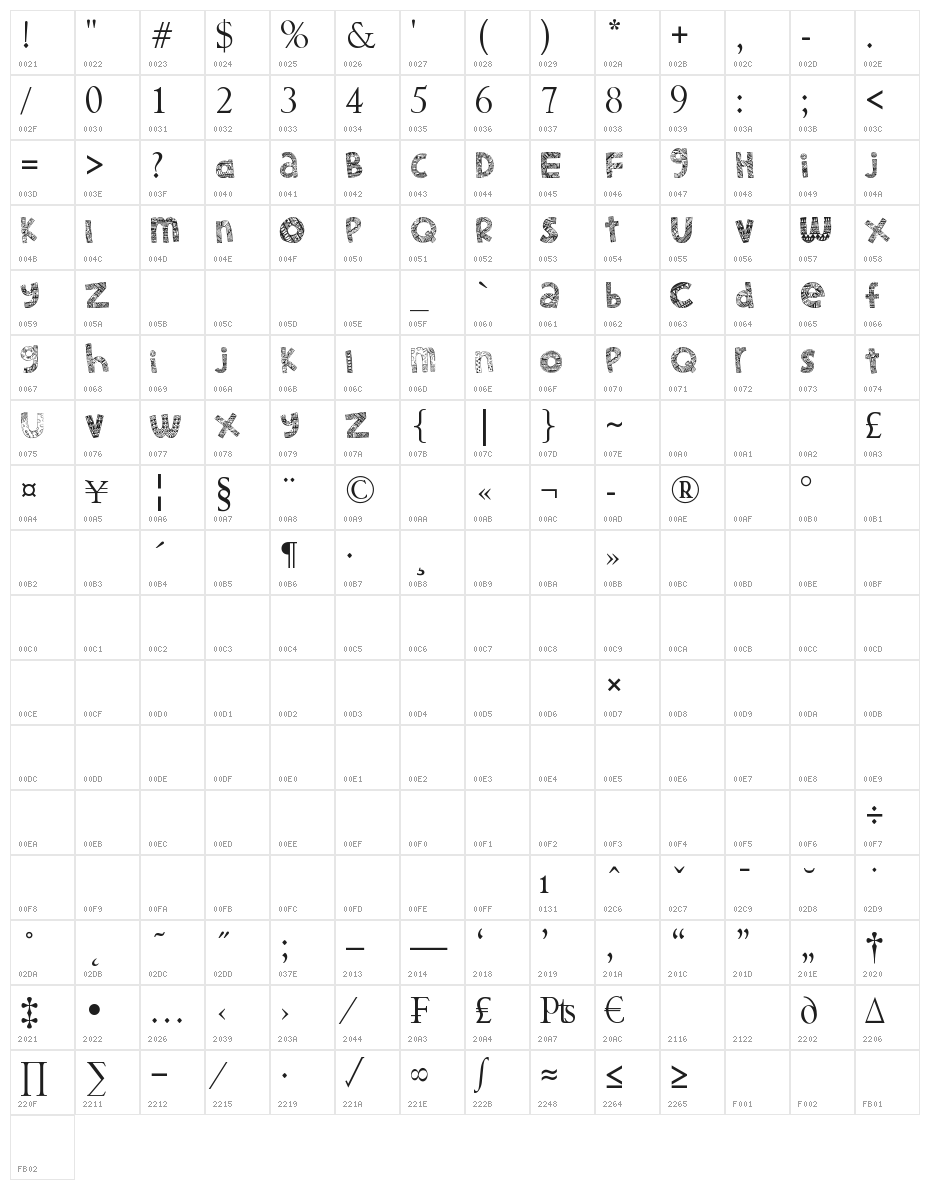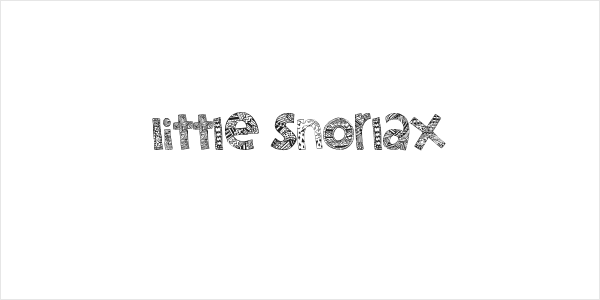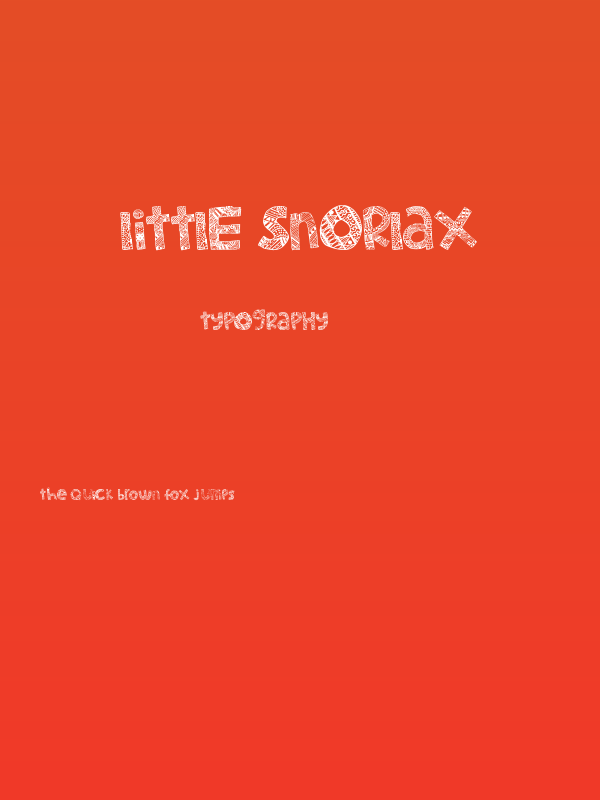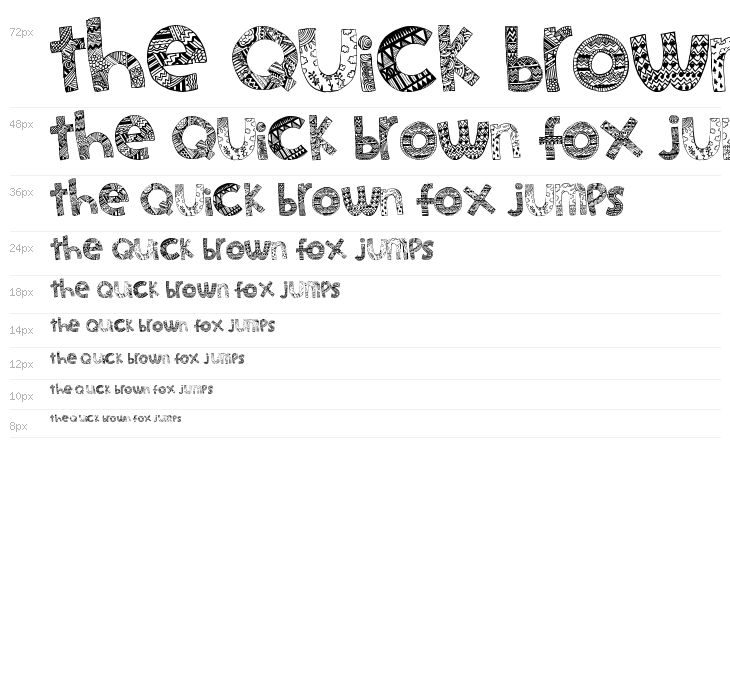
Little Snorlax Font
Little Snorlax Description
This font features a playful and artistic style, with each letter adorned with intricate patterns and textures. The uppercase and lowercase letters are bold and eye-catching, making them ideal for creative projects. The numbers and special characters are presented in a more traditional serif style, offering a unique contrast to the decorative letters. The font's whimsical design is perfect for projects that require a touch of creativity and fun, such as children's books, posters, and artistic branding.
Proposed ProjectsIdeal for children's books, creative posters, artistic branding, and playful invitations.